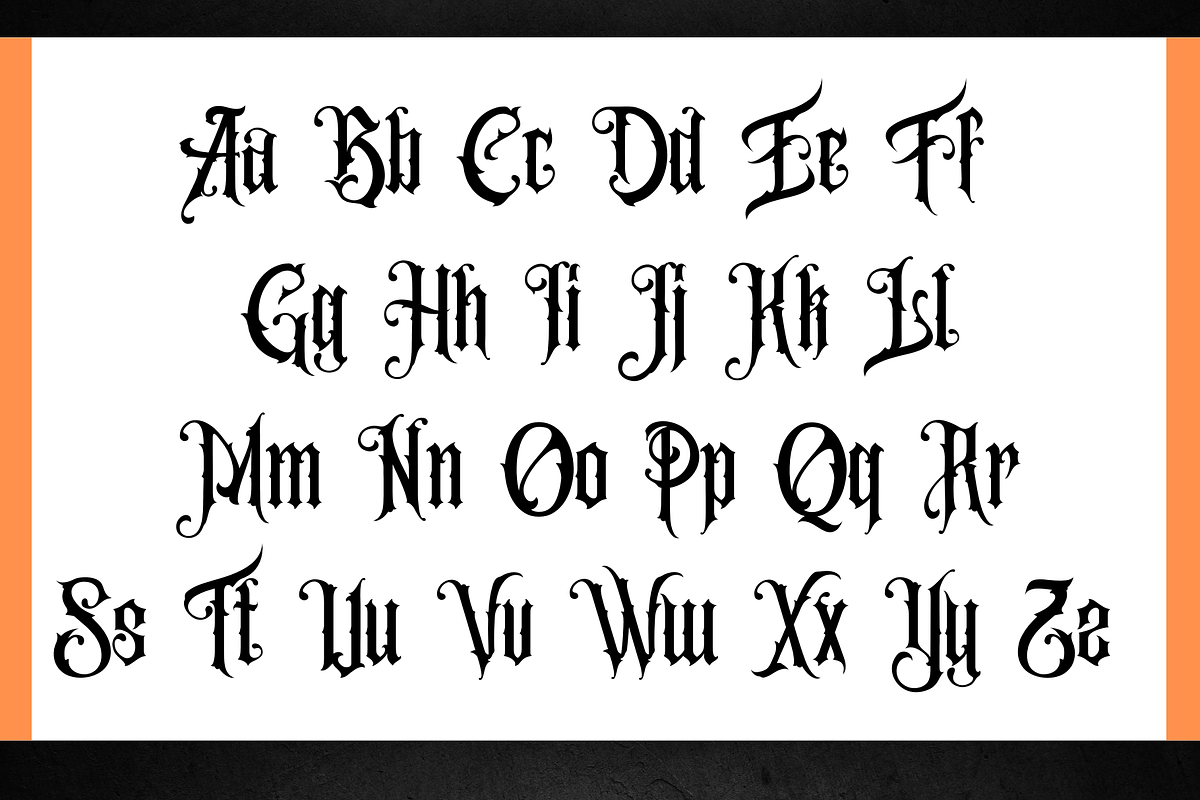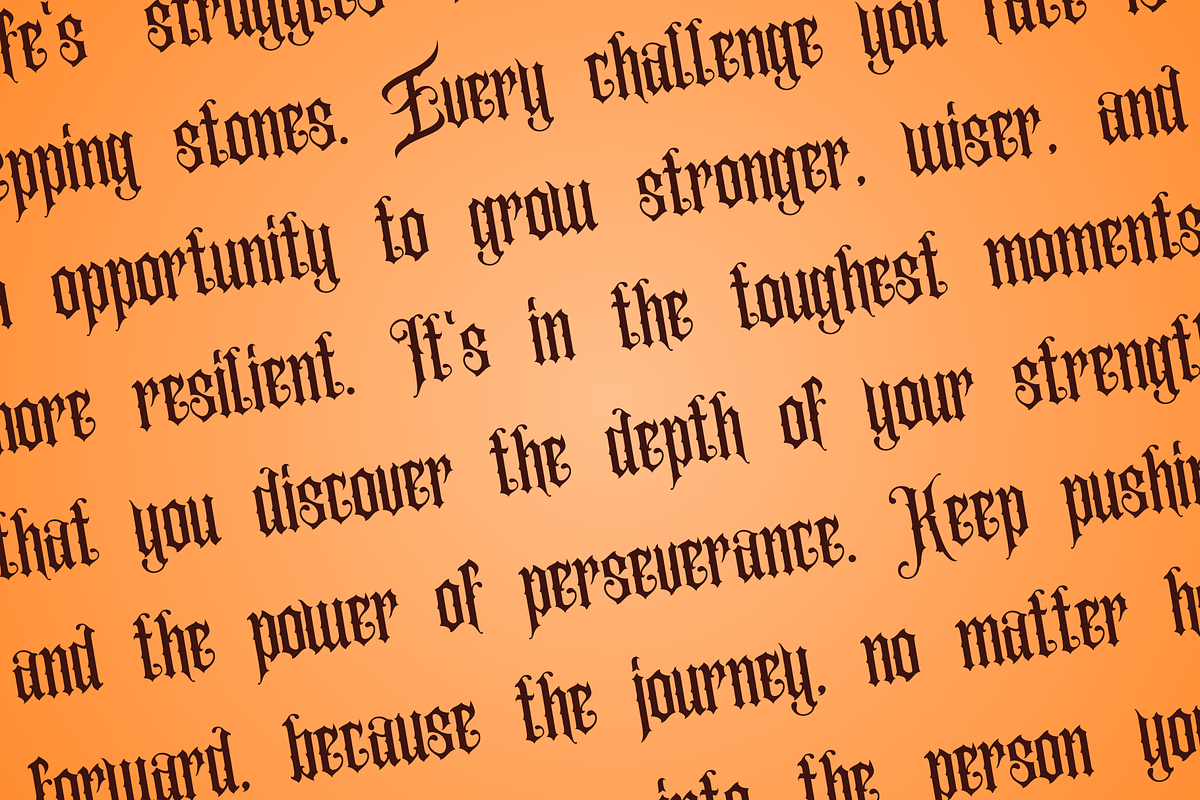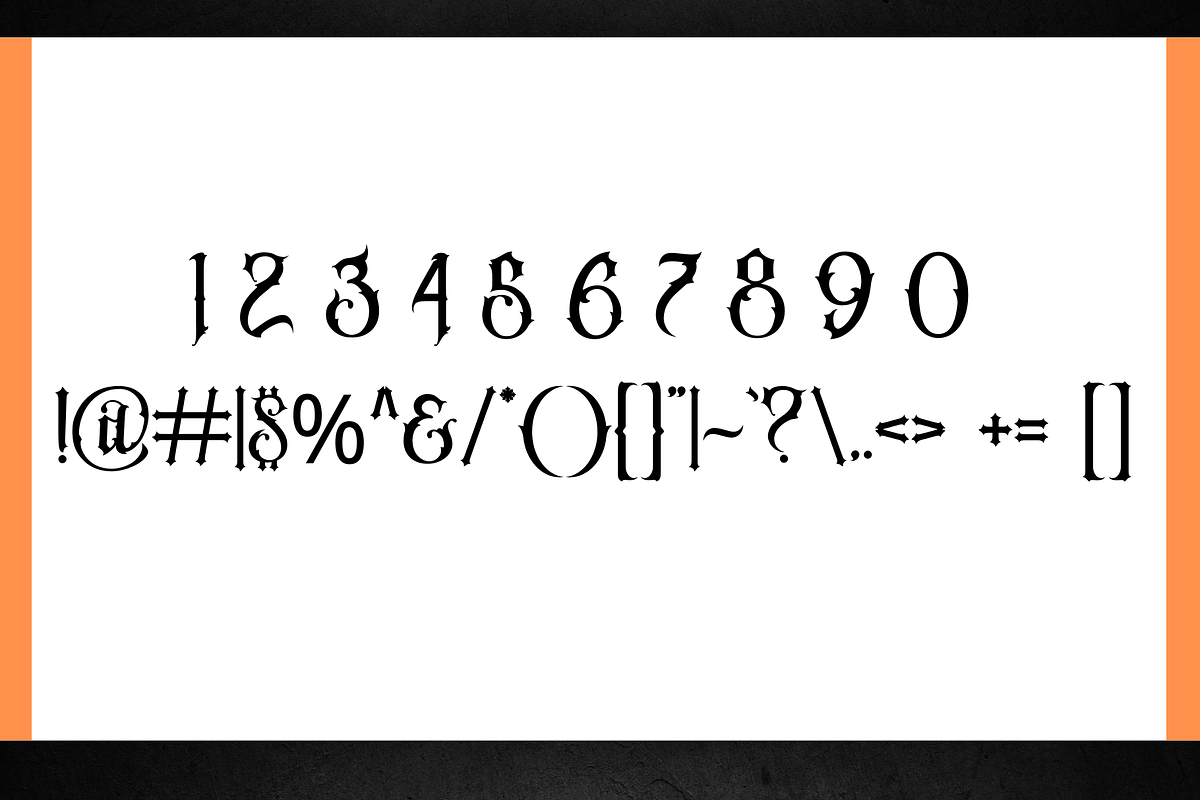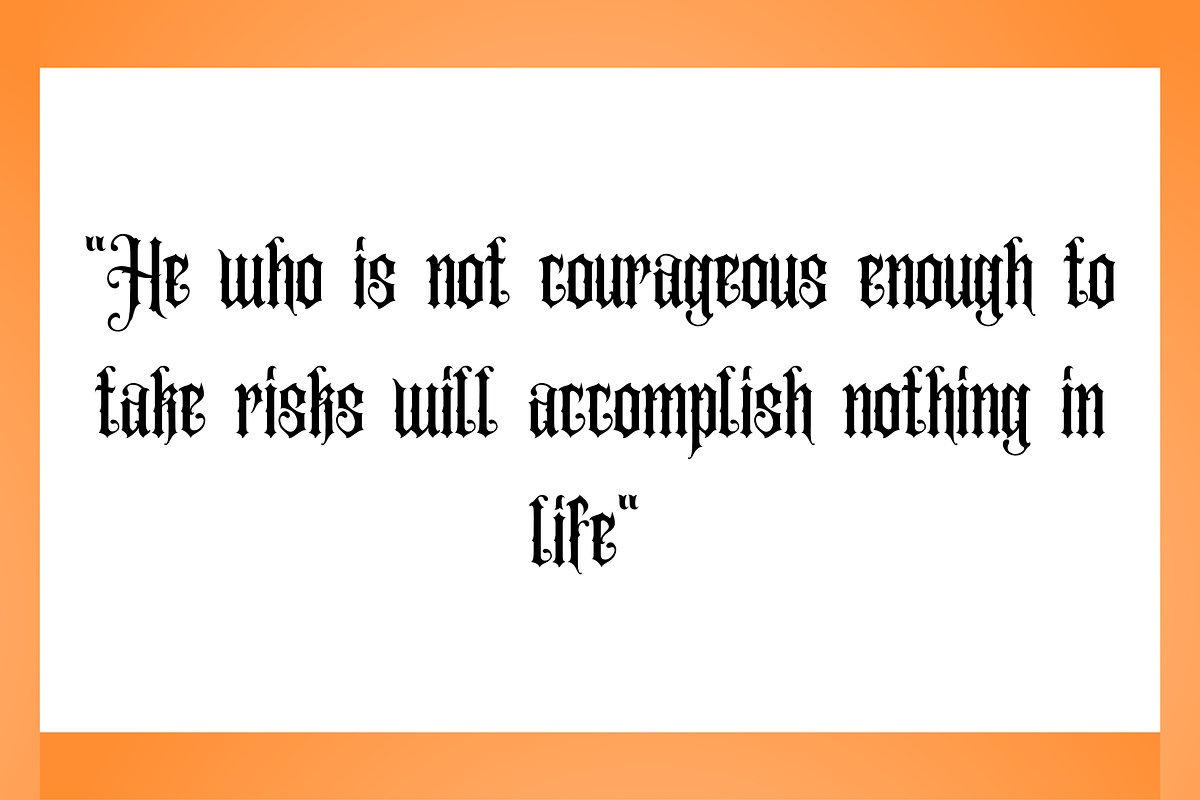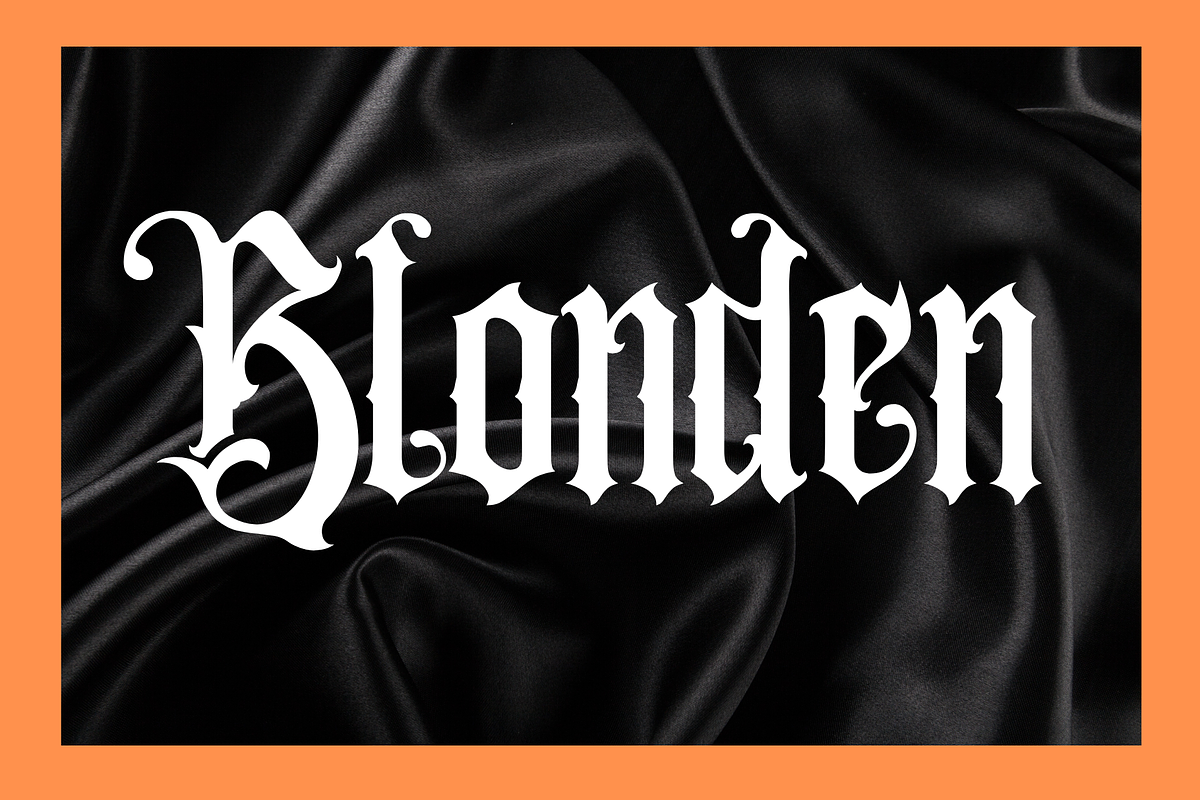
BLONDEN
Blonden is a Blackletter typeface with an ornate and gothic aesthetic. It features sharp, angular strokes, intricate details, and bold letterforms that evoke a medieval and vintage feel. This font includes uppercase and lowercase letters, numbers, and special characters, making it ideal for historical designs, tattoos, branding, and decorative typography. Blonden captures the essence of traditional calligraphy while adding a modern gothic touch.